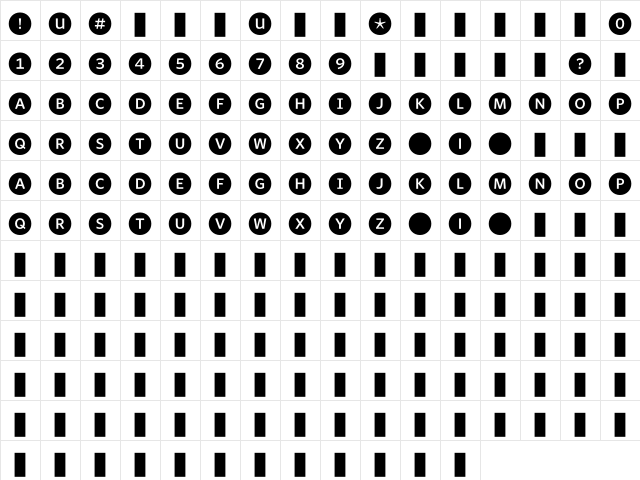
WhitneyIndexBlack RoundMd Font Preview
WhitneyIndexBlack RoundMd
Design Context for WhitneyIndexBlack Typeface
WhitneyIndexBlack uses gentle rounded endings to create a warm, inviting typographic personality — less corporate than geometric sans, more refined than playful display fonts.
Well-suited to UI design, mobile interfaces, and any brand that wants approachability without sacrificing clarity.
Font Pairing: Pairs well with a rounded or humanist sans for body copy, maintaining the friendly tone without relying on WhitneyIndexBlack to carry extended reading.
Pro Tip: Use WhitneyIndexBlack for UI elements, app interfaces, and anywhere a friendly, approachable tone needs to be maintained without sacrificing clarity.